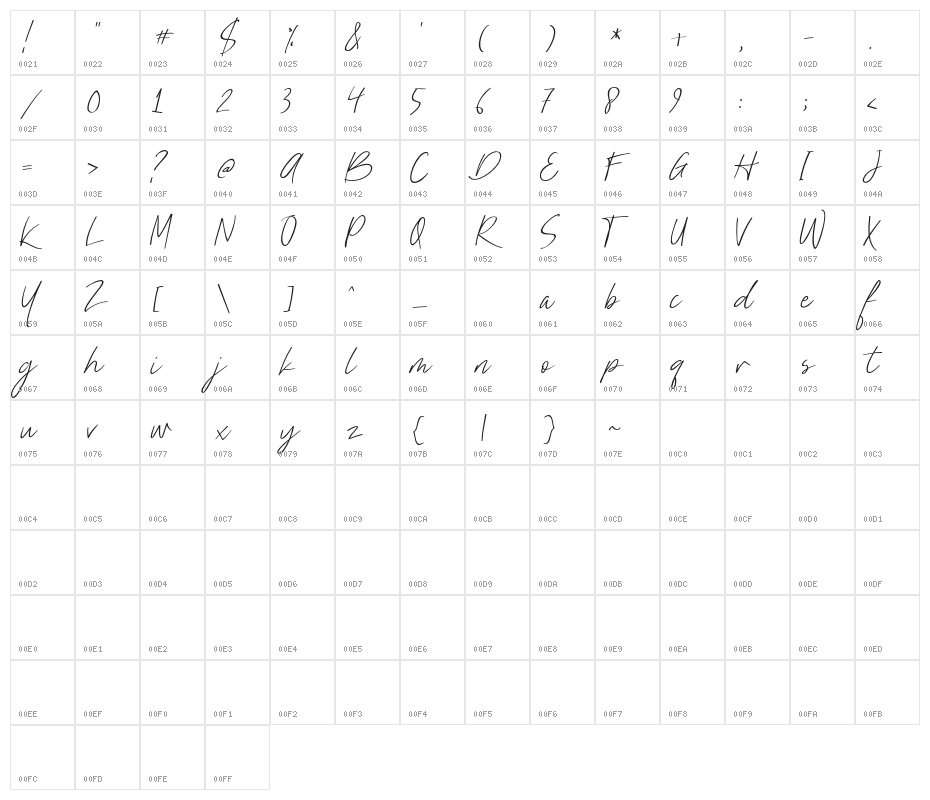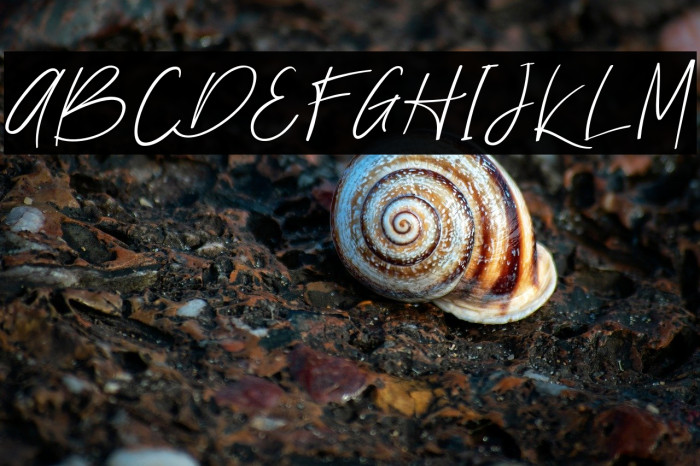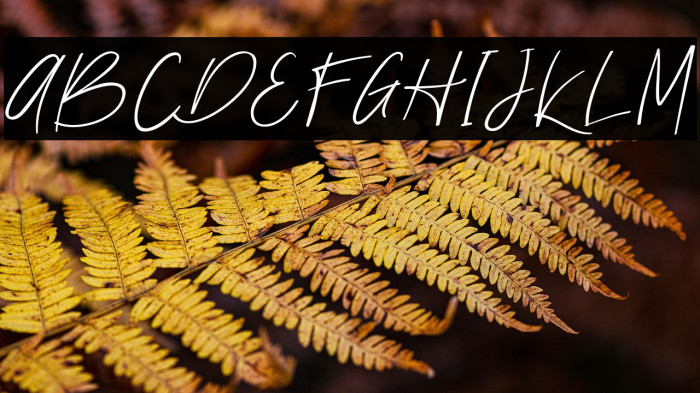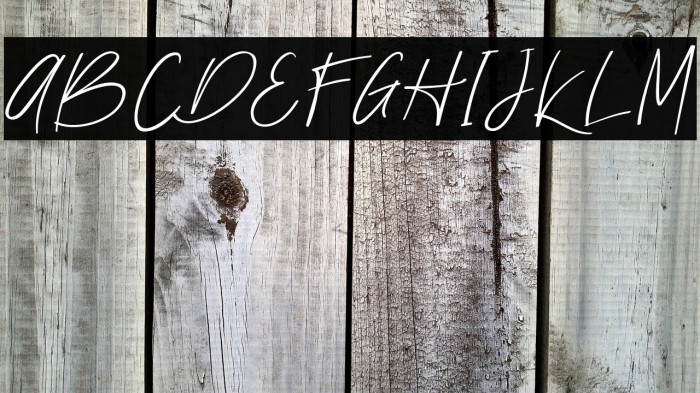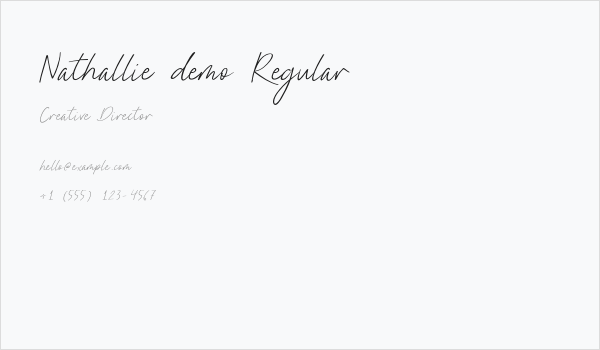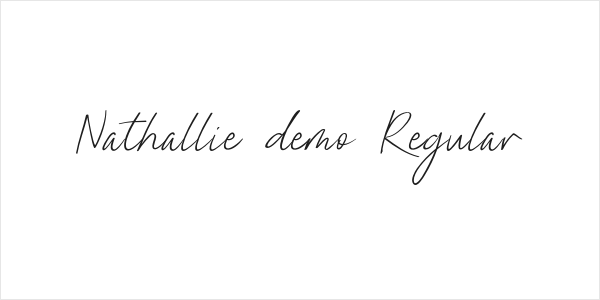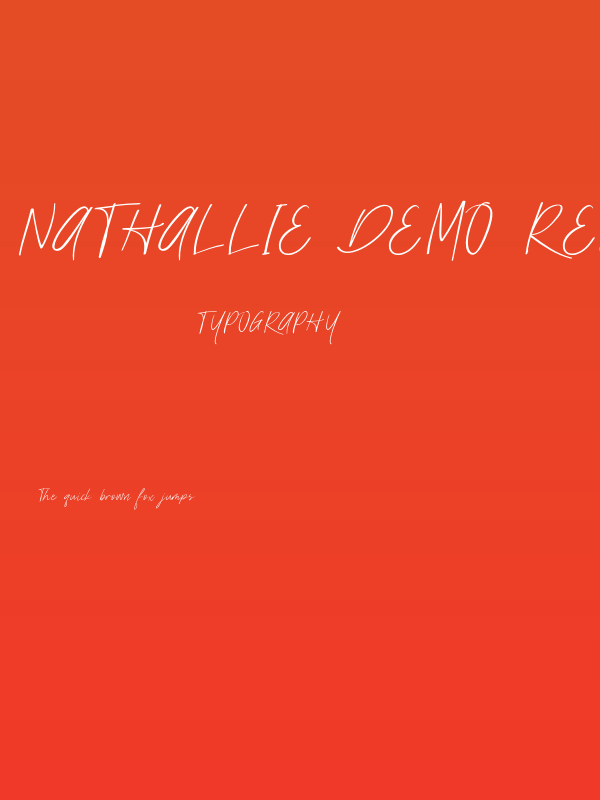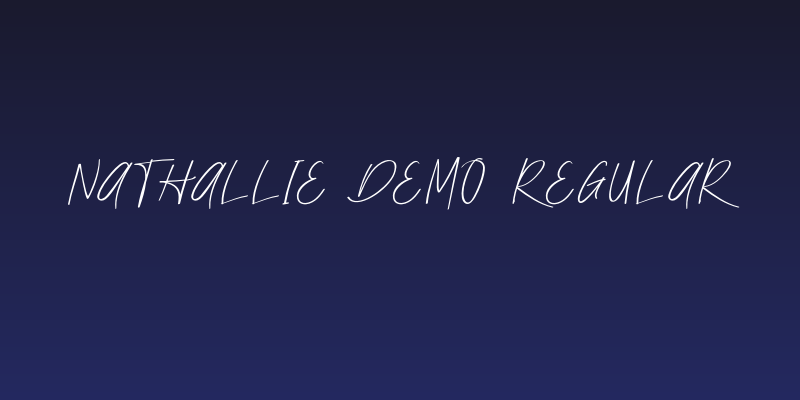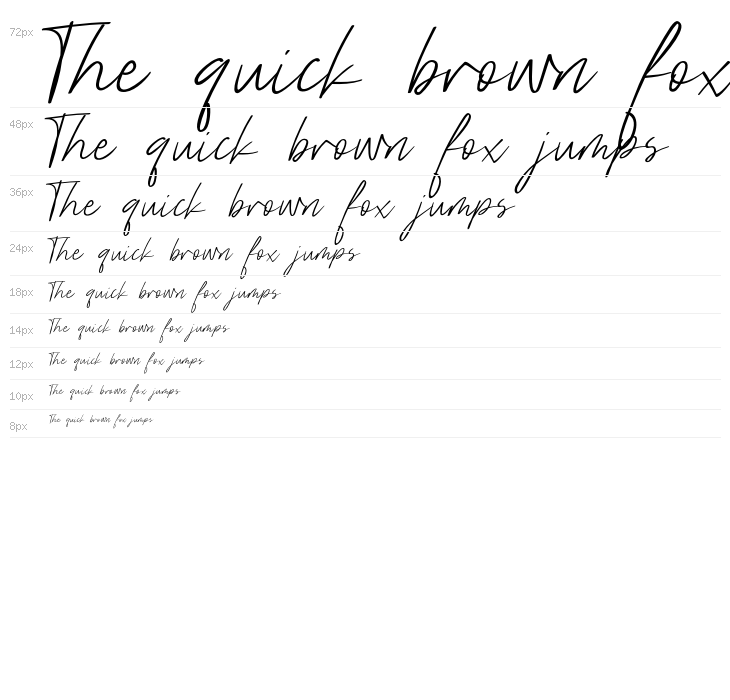
Nathallie demo Regular Font
Nathallie demo Regular Description
This font features a flowing, handwritten style with a natural and elegant appearance. The letters are slightly slanted, giving it a dynamic and lively feel. The strokes vary in thickness, adding a sense of movement and personality. The uppercase letters are distinct and stylish, while the lowercase letters maintain a consistent flow. The numerals and special characters are designed to complement the overall aesthetic, making it versatile for various design needs. Its informal yet sophisticated look makes it suitable for creative projects.
| Proposed Projects | Ideal for wedding invitations, personal branding, greeting cards, and artistic projects. |